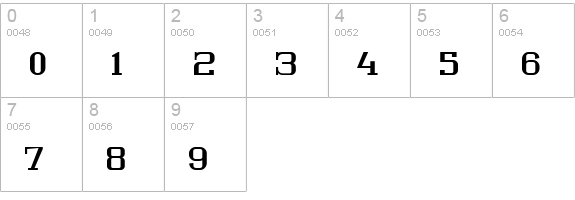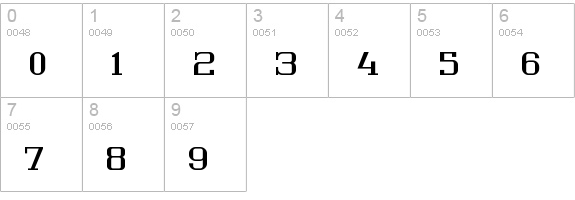
Lousitania Font Details
Lousitania font is a stunning display typeface with an elegant and sophisticated aesthetic. Featuring intricate details and a timeless design, this font is perfect for adding a touch of class to any project. Whether you're designing a wedding invitation, branding materials, or a logo, Lousitania font will elevate your work to the next level. The best part? Lousitania font is completely free! That's right, you can download this exquisite typeface at FontsMarket.com without spending a dime. With its impeccable craftsmanship and versatility, Lousitania font is a must-have for any designer looking to make a statement. Download it today and start creating beautiful designs effortlessly.